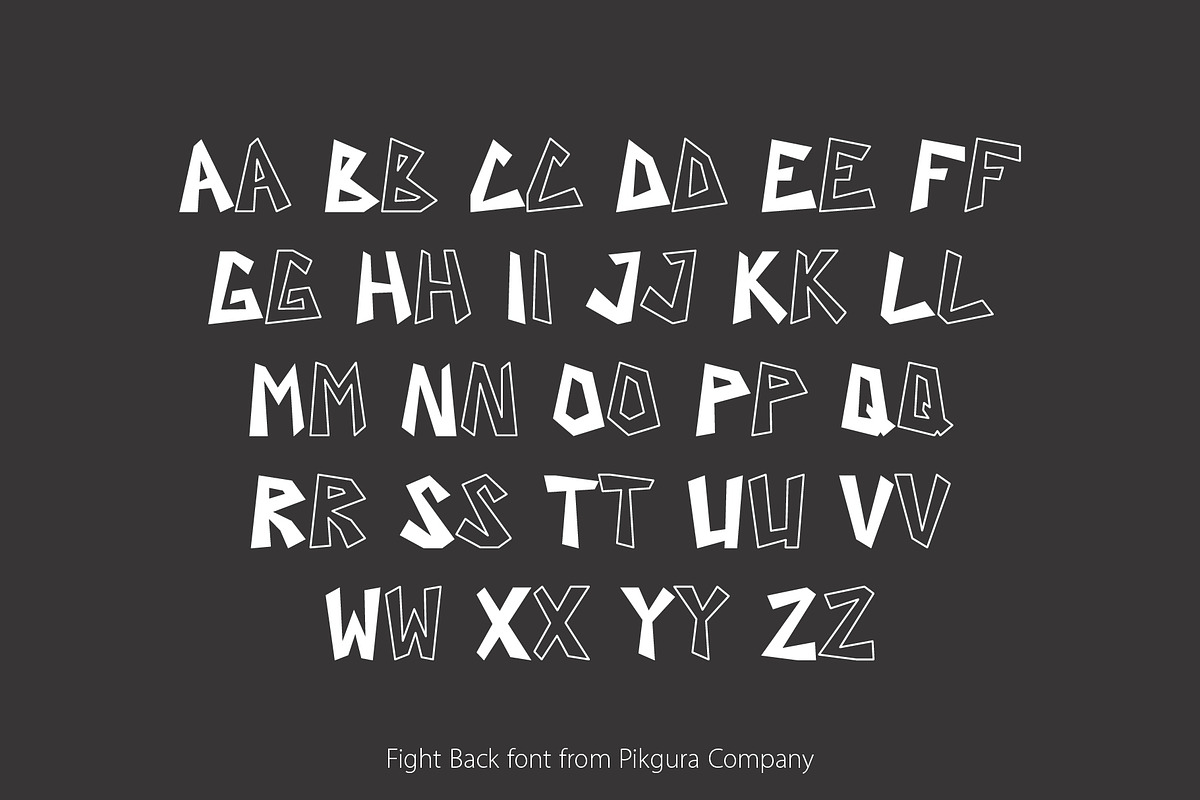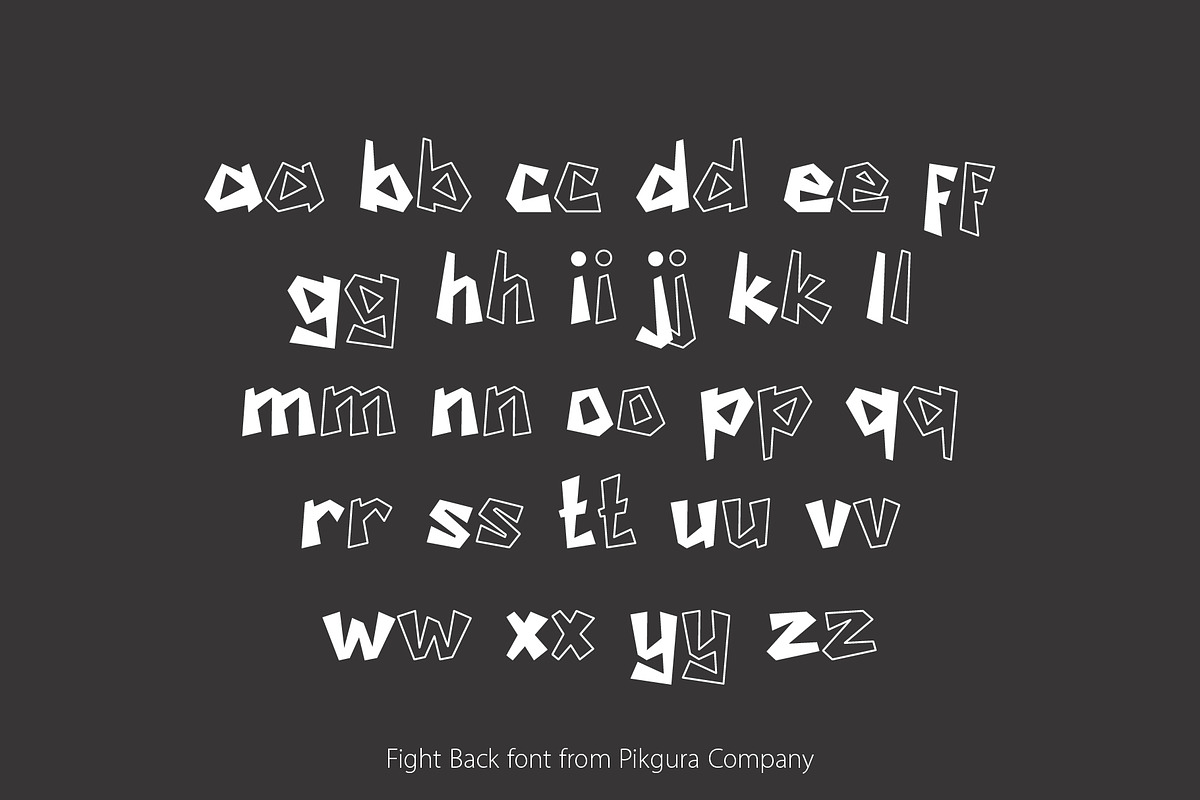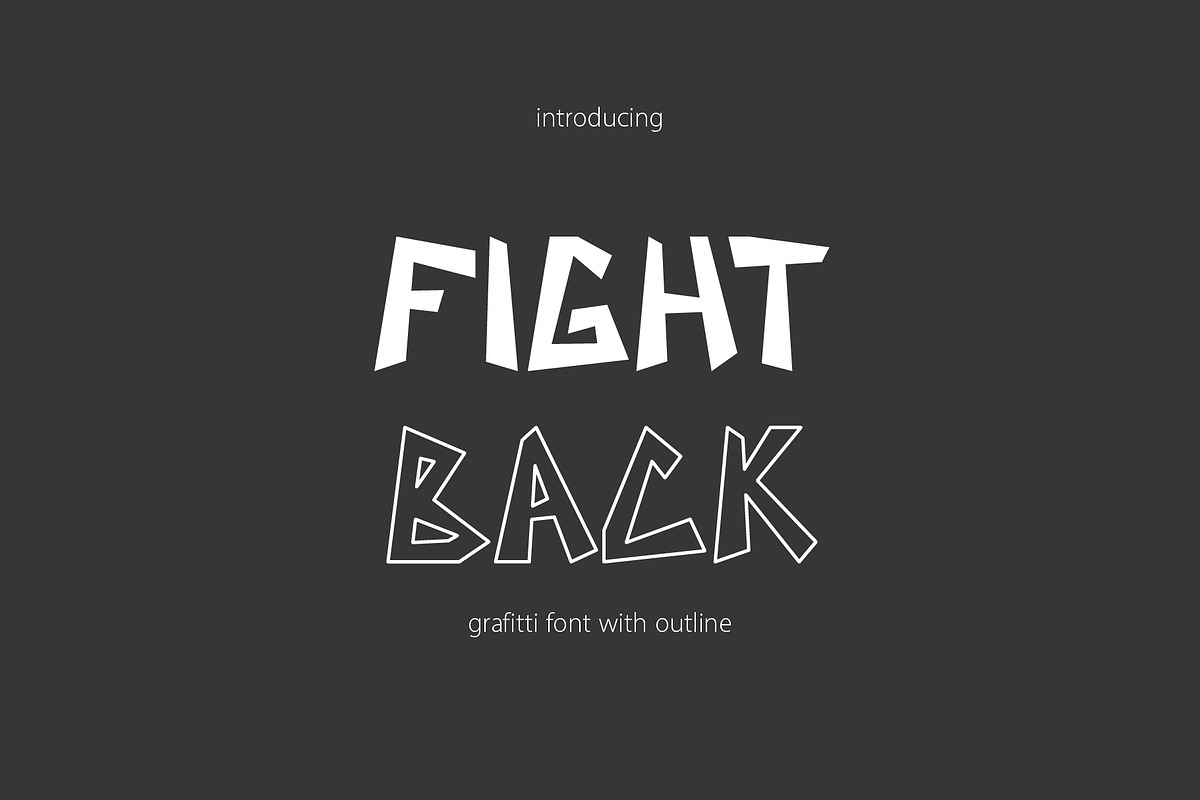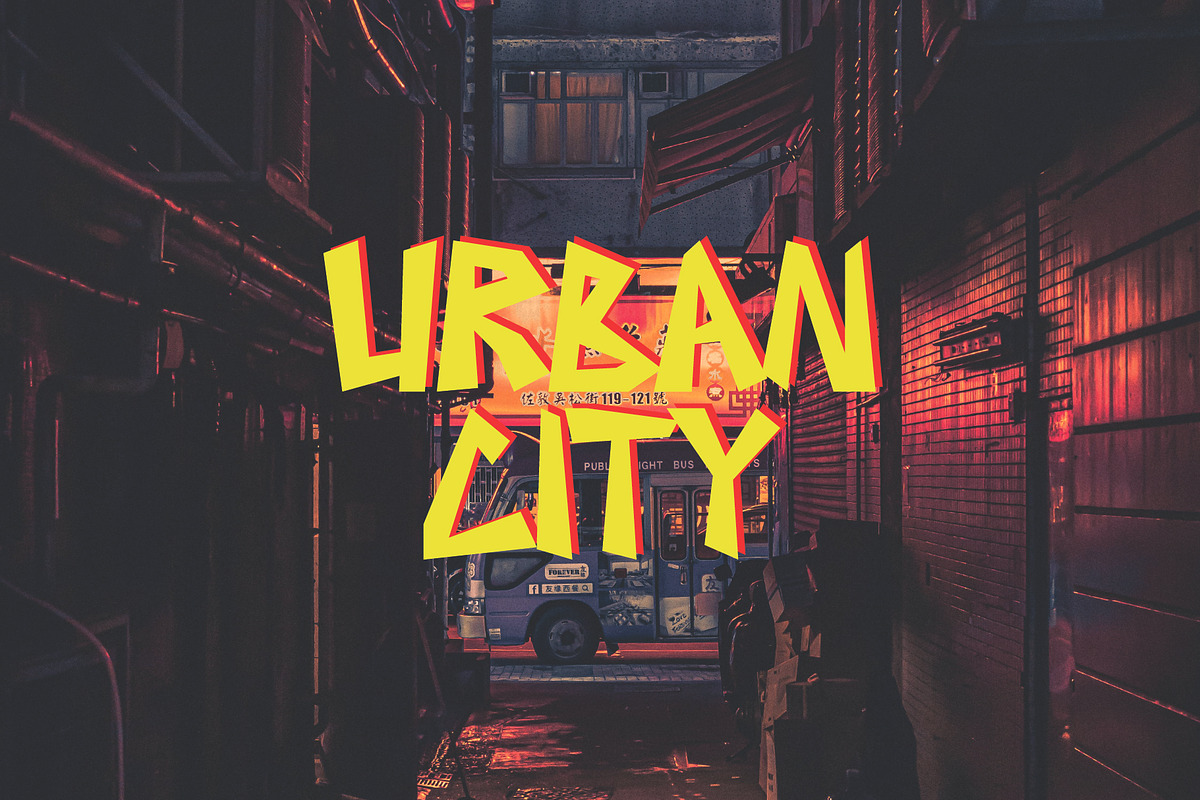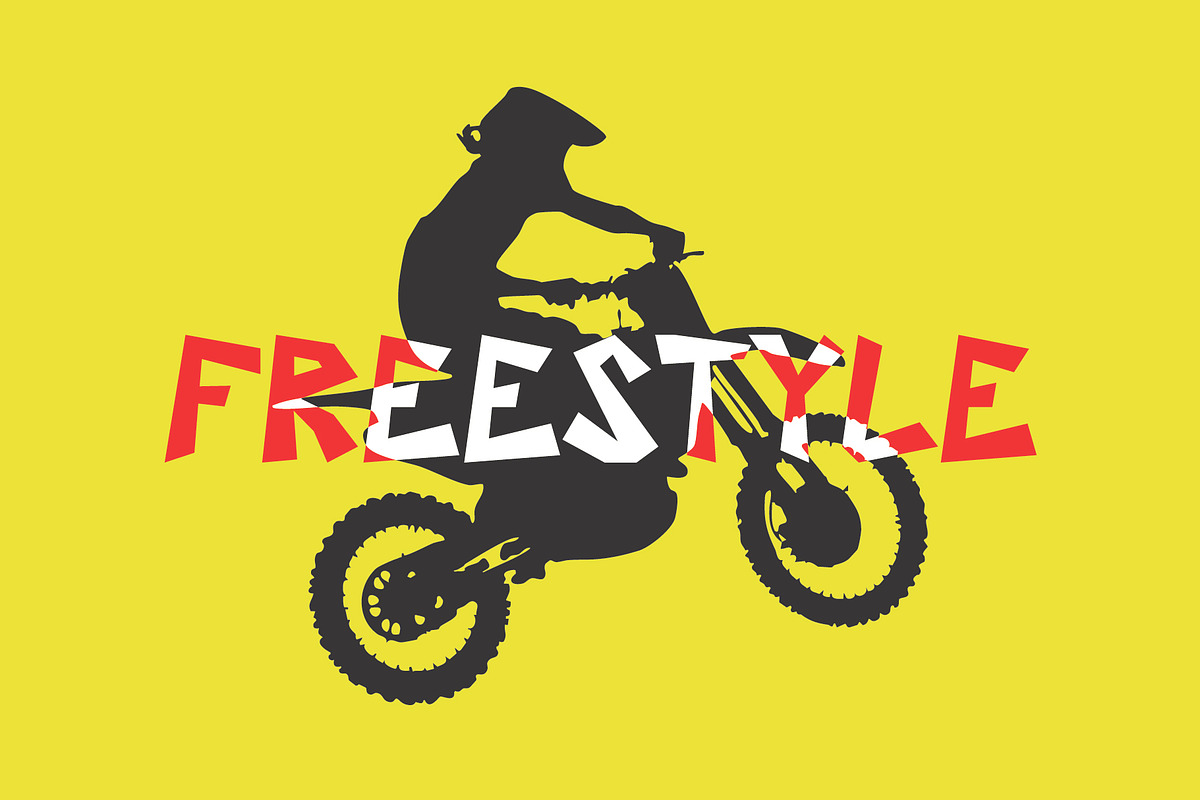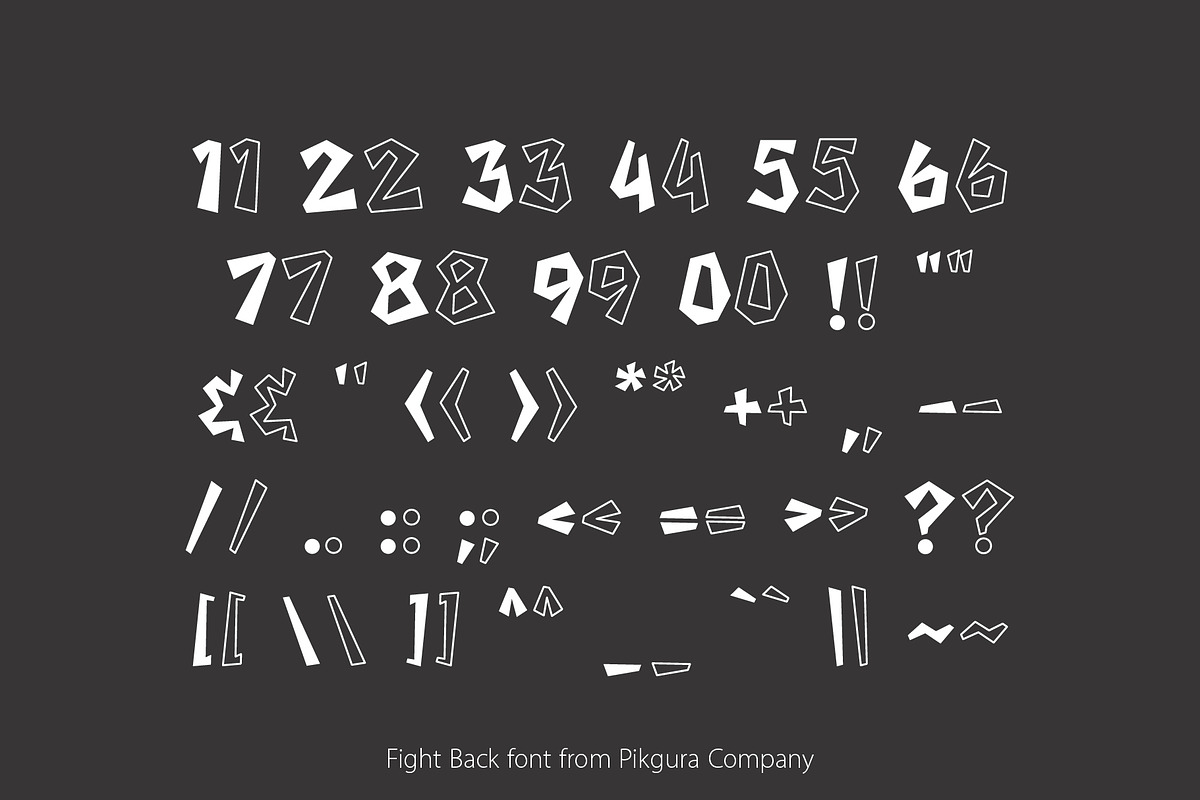
PGR Fight Back - Graffiti Font
Don’t settle for boring, generic fonts. Download Fight Back today and start making a statement with your designs. Perfect for posters, apparel, thumbnails, and more, Fight Back is the ultimate hand-drawn graffiti font for anyone who wants to add a touch of urban edge to their creations.
Fight Back includes a full range of characters, including uppercase and lowercase letters, numbers, and basic punctuation. Plus, you’ll also get a versatile outline version that’s perfect for creating bold, eye-catching designs.